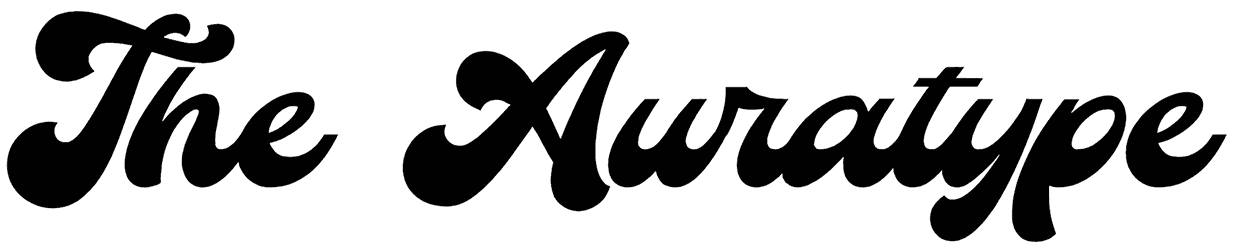
The Auratype Font
If you are working on a vintage design, without a doubt, this old school font can be a great option to decorate your words. The Auratype, with its bulky, smooth lettering, would give a cool vibe to your creative design.…
If you are working on a vintage design, without a doubt, this old school font can be a great option to decorate your words. The Auratype, with its bulky, smooth lettering, would give a cool vibe to your creative design. As a groovy font with almost full support for characters in two styles, the Auratype font comes to be a perfect illustration for varied layouts from posters to apparel.